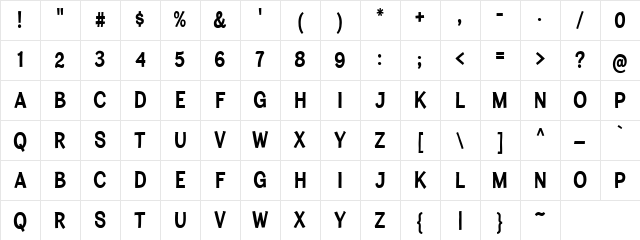
Complete Aprilio Hope Bold glyph index. Displaying only characters natively supported by Aprilio Hope Bold font.
Aprilio Hope is a composed and adaptable typeface that performs quietly and consistently across a wide range of design contexts. Its bold stroke weight gives it real presence on the page.